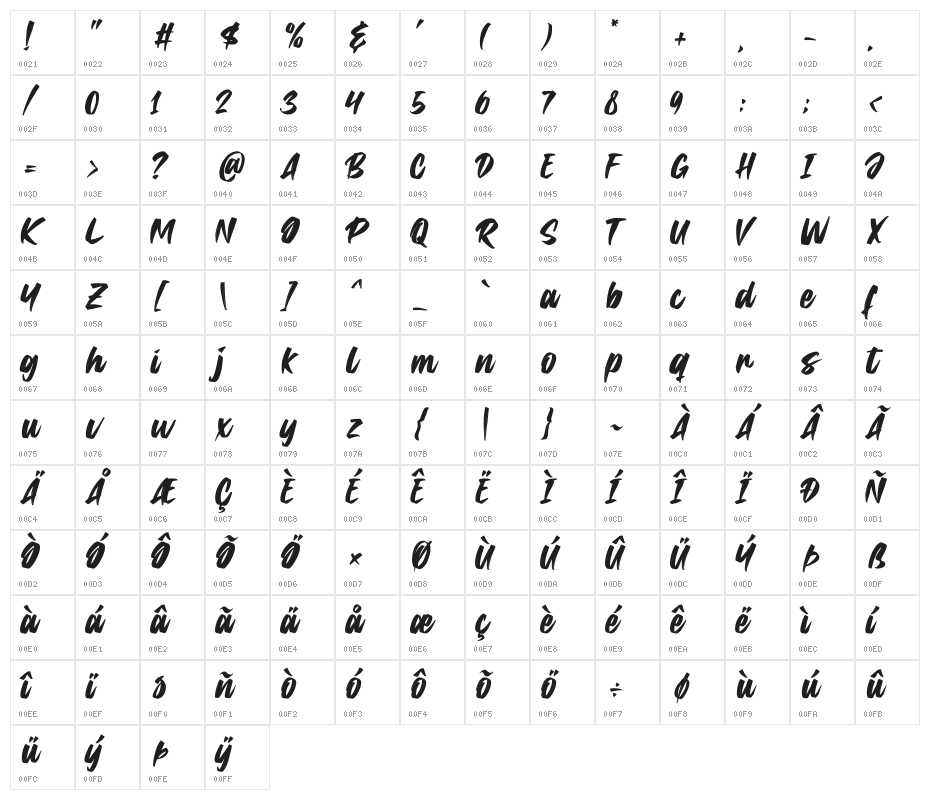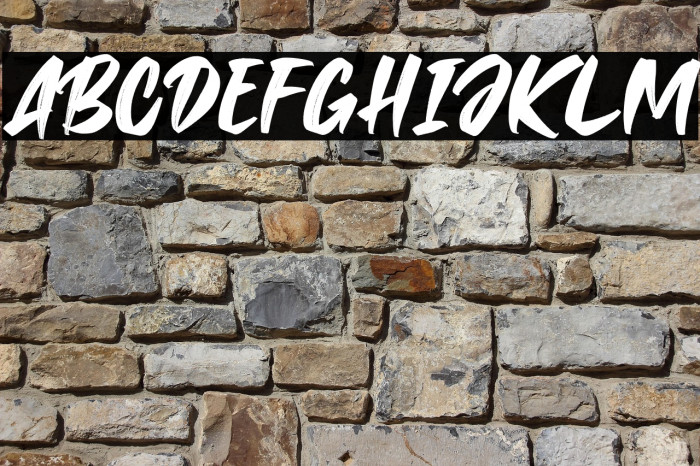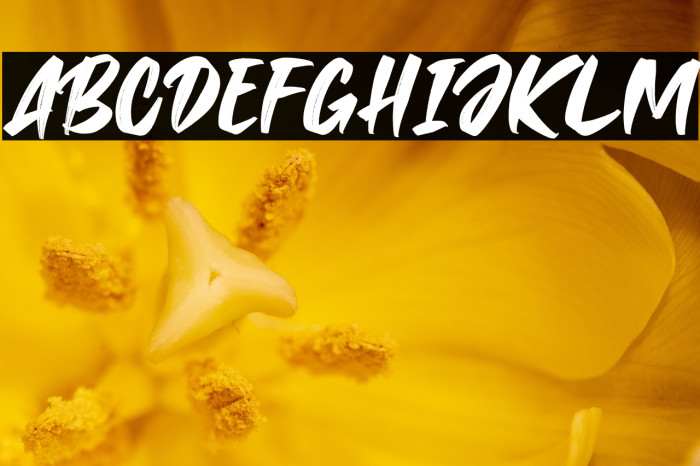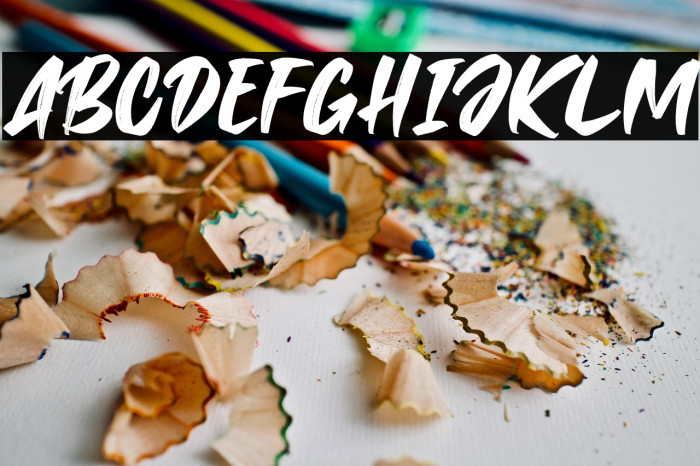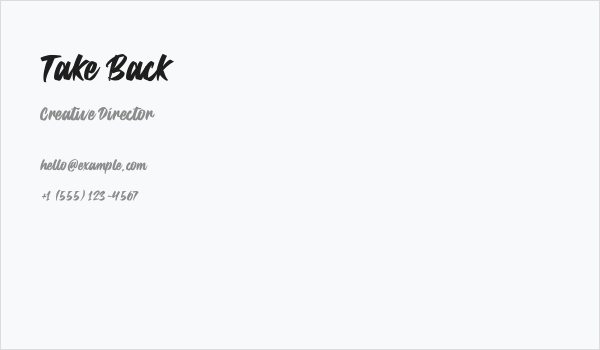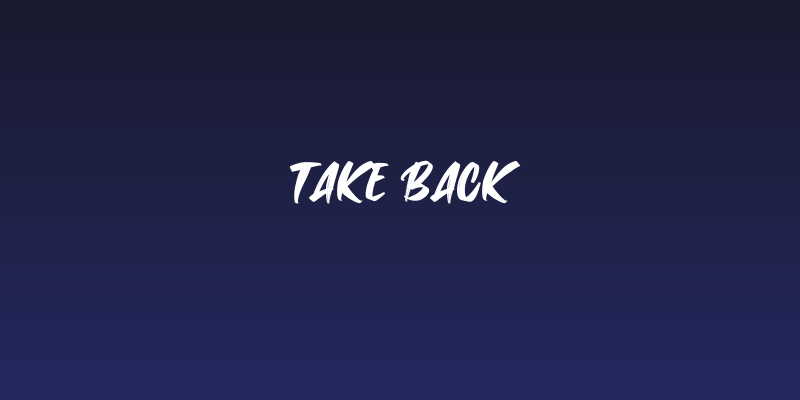
Take Back Font
Take Back Description
This font features a bold and dynamic brush script style, characterized by its energetic and flowing strokes. The letters are crafted with a sense of movement and spontaneity, giving it a lively and expressive appearance. The uppercase and lowercase letters maintain a consistent style, with slightly exaggerated curves and a playful yet sophisticated flair. Numbers and special characters are equally bold, ensuring a cohesive look across all text elements. The font's brush-like texture adds a handcrafted feel, making it ideal for projects that require a personal touch.
| Use Case | Logos, Headlines, Posters |
| Proposed Projects | Ideal for branding, packaging, posters, and social media graphics where a lively and expressive touch is desired. |